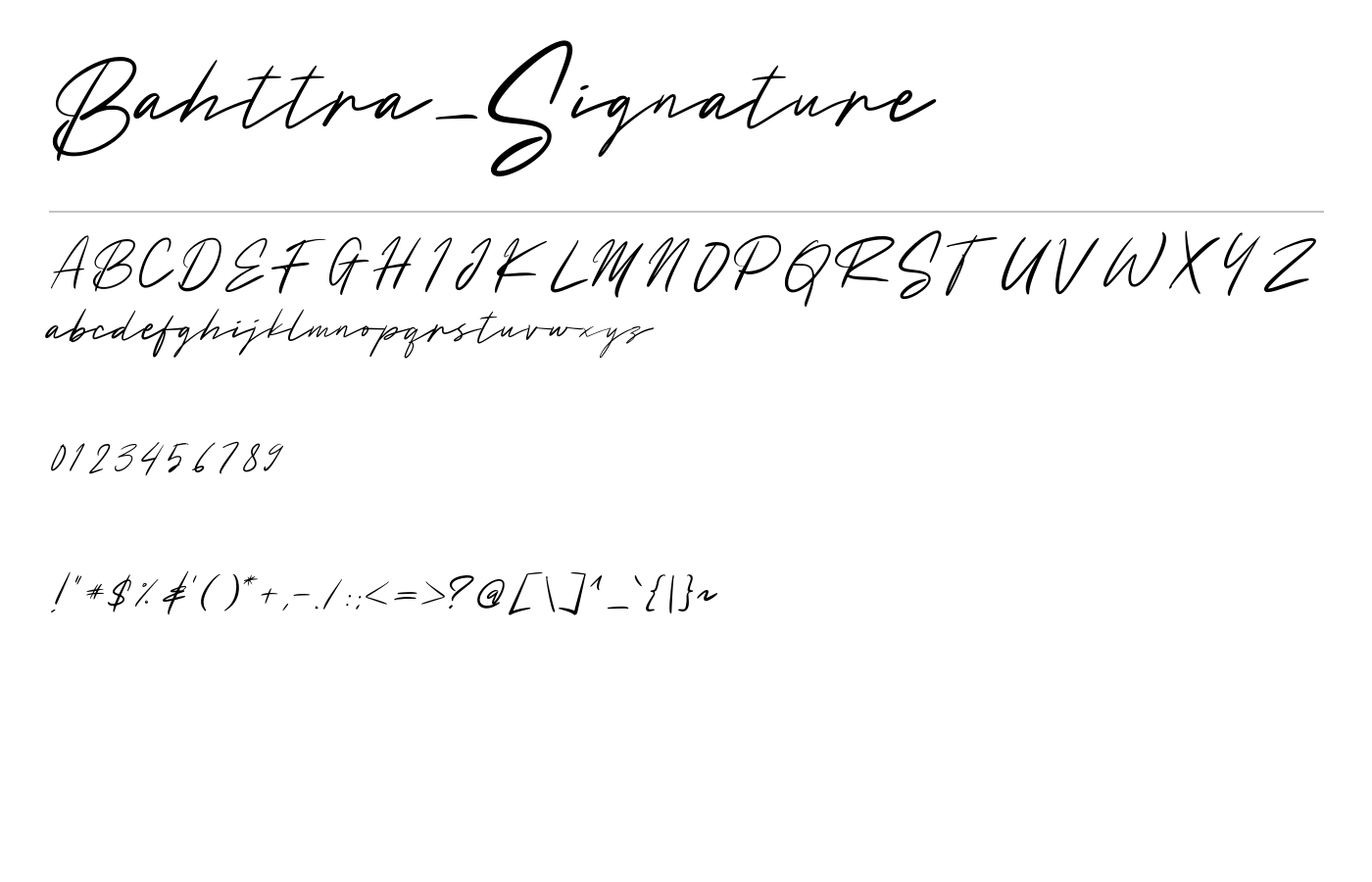
Bahttra_Signature is a delicate, stylish script font that mimics elegant handwriting with smooth, flowing strokes and a natural, casual flair. Its slender, slightly condensed letterforms and balanced contrast create a sophisticated yet approachable feel, making it perfect for luxury branding, personal signatures, invitations, and creative logos. This font shines in contexts where a refined, handwritten touch adds warmth and personality.
Bahttra_Signature Font
About Bahttra_Signature Font